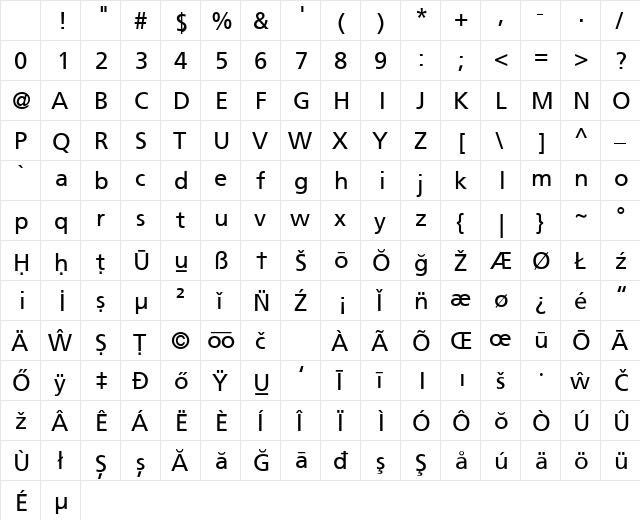
Frutiger SAIN Rm v.1 Roman
Frutiger SAIN Rm v.1 is a composed and adaptable typeface that performs quietly and consistently across a wide range of design contexts.
Pro Tip: Use Frutiger SAIN Rm v.1 in both headline and body roles to test its range before committing to a single application.